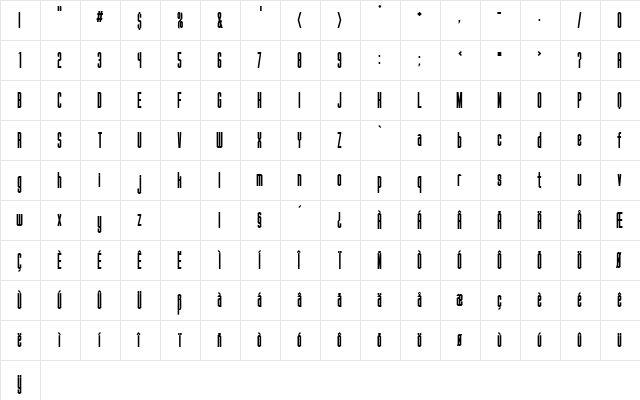
FanatiqueBol Regular
Design Context for FanatiqueBol Typeface
FanatiqueBol is a composed and adaptable typeface that performs quietly and consistently across a wide range of design contexts.